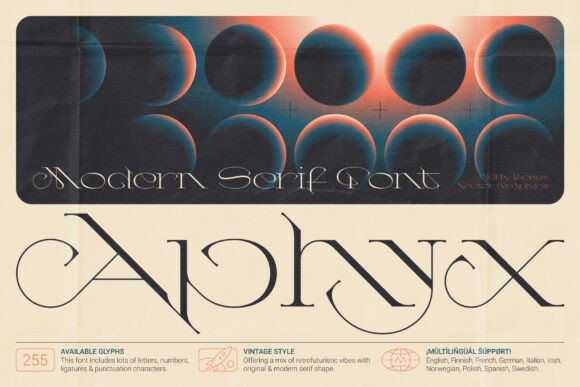
Introducing Aphyx: The Modern Serif Font with a Vintage Twist
Have you ever been in the middle of working on a design project, and suddenly, you just can’t seem to find the right font? I recall a recent experience where I was tasked with creating a high-end fashion magazine, and I was on the hunt for a typeface that would add a touch of sophistication and nostalgia to the layout. That’s when I stumbled upon Aphyx, a modern serif font that has been a game-changer for my design workflow.
The Design Moment: Aphyx Saves the Day
I was browsing through my font library, and Aphyx caught my eye. Its unique blend of vintage Y2K vibes and authentic modern design immediately drew me in. I knew I had to give it a try. As I began to work with Aphyx, I was impressed by its versatility and the way it elevated my design. The font features original shapes, a wide set of characters, including ligatures, alternates, and multilingual support, making it perfect for a variety of design projects.
An Honest Review of Aphyx
What I Love About Aphyx ✨
• ✅ Unique blend of vintage Y2K vibes and modern design
• ✅ Wide set of characters, including ligatures, alternates, and multilingual support
• ✅ Sophisticated yet nostalgic feel that adds a touch of elegance to any layout
While Aphyx is an excellent font, there are a few minor quirks to be aware of:
• 🤔 Some users may find the font’s vintage vibe too nostalgic for certain projects
The Backstory of Aphyx
Aphyx was designed with the goal of creating a modern serif font that would blend vintage Y2K vibes with authentic modern design. The designer, inspired by the nostalgia of the early 2000s, sought to create a font that would add a touch of sophistication and elegance to any layout. With its unique shapes and wide range of characters, Aphyx has become a versatile font that can be used in a variety of design projects.
Author Gleb Guralnyk
Q: Can I use Aphyx for multilingual projects?
A: Yes, Aphyx includes multilingual support, making it perfect for projects that require a wide range of characters and languages.